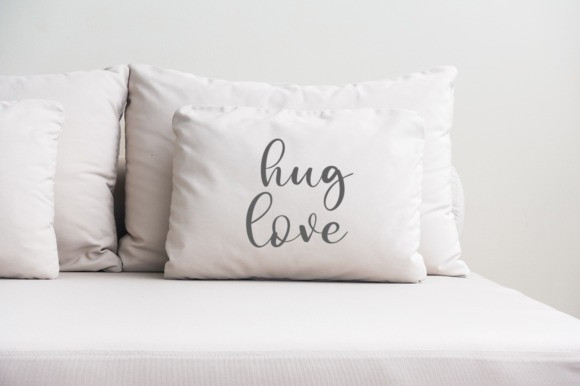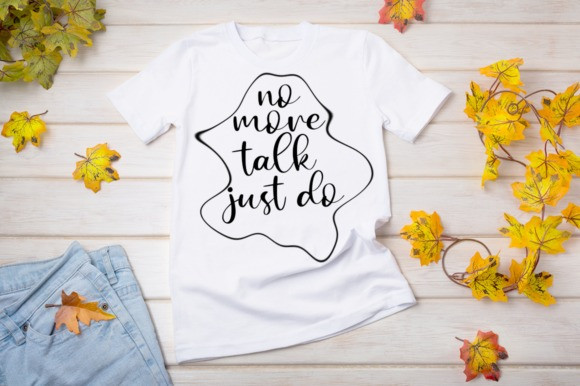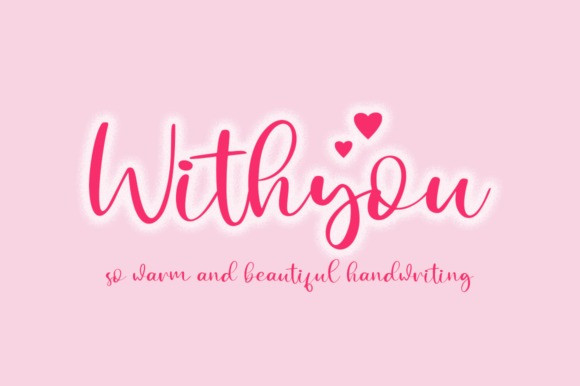
Flashback Script Font
Flashback is an incredibly unique handwritten font. Warm, romantic and jolly, this font will turn each of your project ideas into real works of art. Have fun with this beautiful font and explore its endless variations.